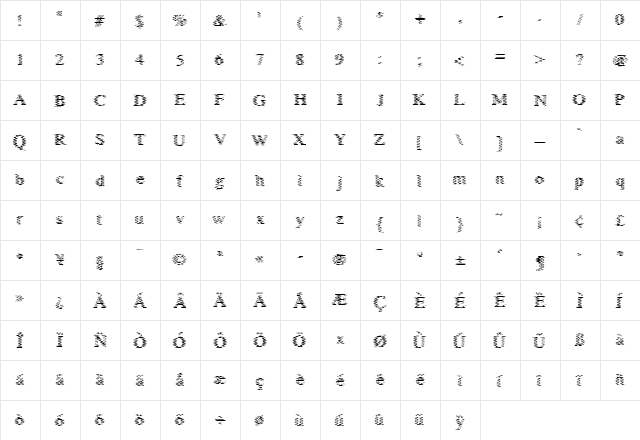
Singer Regular
Design Context for Singer Typeface
Singer takes a measured approach to typography — its balanced proportions and neutral character make it a reliable workhorse for both digital and print work.